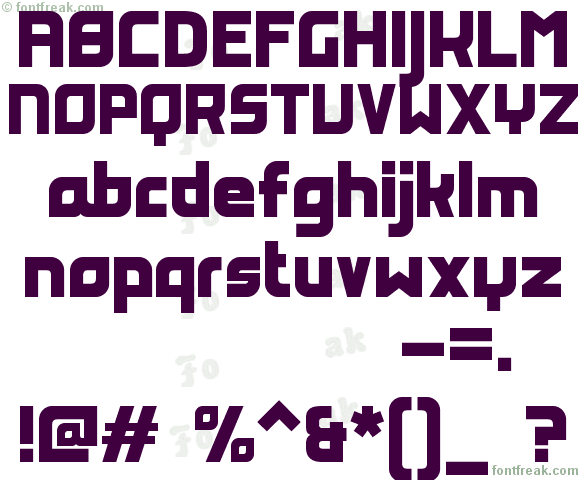
PEPPERMINT Regular
About PEPPERMINT Regular
PEPPERMINT Regular by MonoFonts is a striking display font that exudes a contemporary, playful vibe, making it ideal for a wide range of creative projects. This font features a bold, sans-serif design characterized by its clean lines and balanced stroke weight. The uniformity in the letterforms creates a cohesive look, while the subtle curves add a touch of whimsy, making it visually engaging without being overwhelming.
The visual characteristics of PEPPERMINT Regular include a moderate contrast between thick and thin strokes, contributing to its legibility and aesthetic appeal. The careful spacing between characters enhances readability, making it suitable for both print and digital applications. The font's decorative elements are minimal, allowing it to maintain a modern feel while still providing personality.
This versatile typeface can be effectively utilized in a variety of contexts. It's perfect for wedding invitations, where its playful yet elegant design can set a celebratory tone. PEPPERMINT Regular also works wonderfully for restaurant menus, giving a friendly and inviting feel to the dining experience. Additionally, it’s an excellent choice for movie posters, where its boldness can capture attention and convey a sense of excitement. Content creators looking to add a unique flair to their branding materials will find this font to be a fantastic asset as well.
Target audiences for PEPPERMINT Regular include graphic designers seeking fresh typography options, small business owners looking to enhance their marketing materials, and content creators wanting to add a distinctive touch to their projects. This font stands out due to its combination of modernity and playfulness, making it an attractive choice for anyone wanting to make a memorable impression. For those interested in incorporating this unique typeface into their work, the PEPPERMINT Regular font free download makes it easily accessible.